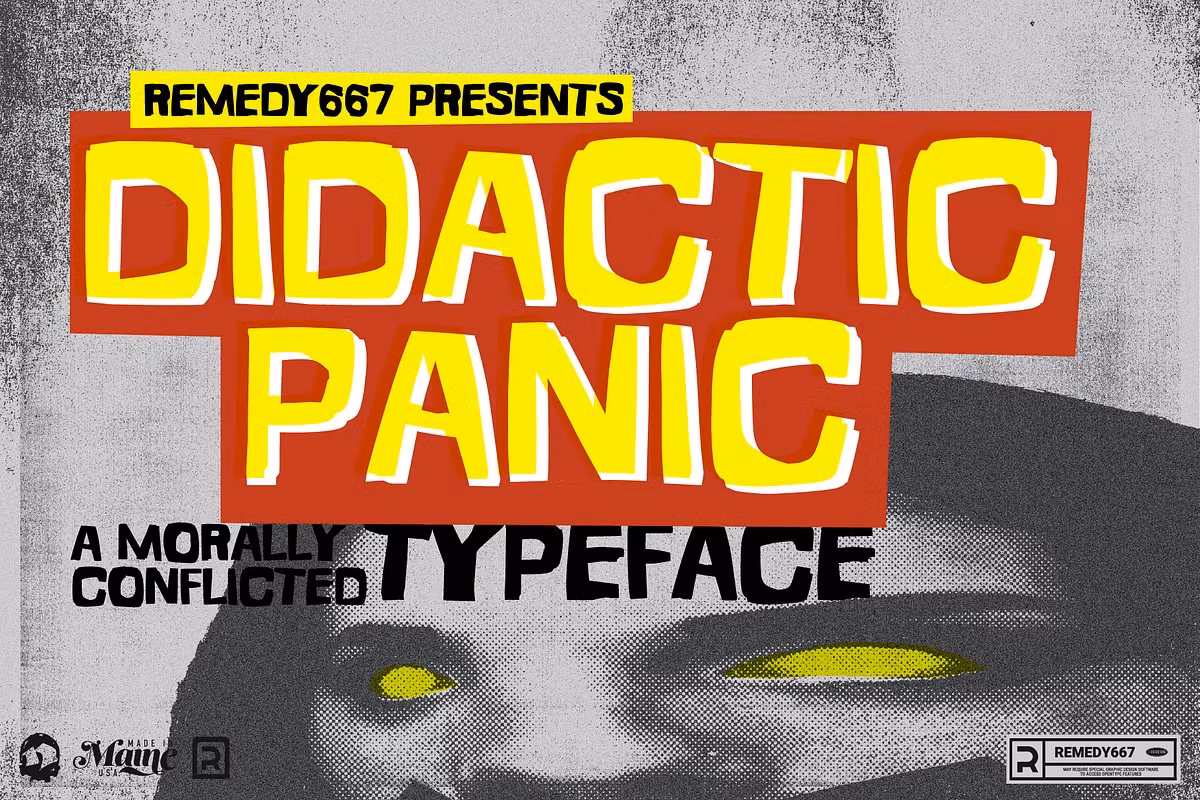
Didactic Panic Font Free Download is a bold, expressive typeface with a unique and energetic design. Featuring sharp edges, irregular strokes, and a distressed aesthetic, this font is perfect for high-impact projects that require attention-grabbing typography. Whether you're designing posters, album covers, event flyers, or branding materials, this font brings a sense of urgency and creativity to your work.
Using the Didactic Panic Font Free Download adds a dynamic, edgy touch to your typography. Whether you're working on a music event, a rebellious brand, or creating designs with a strong visual statement, this font ensures your content stands out with power and boldness.